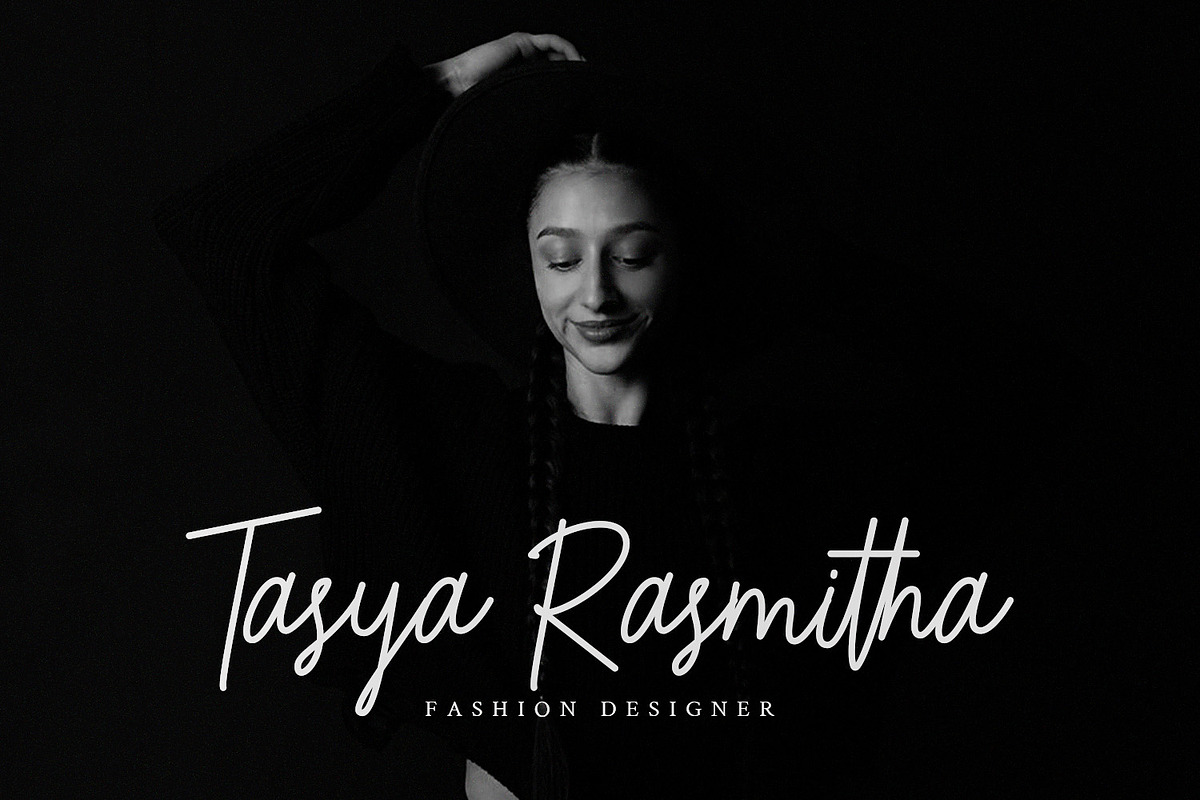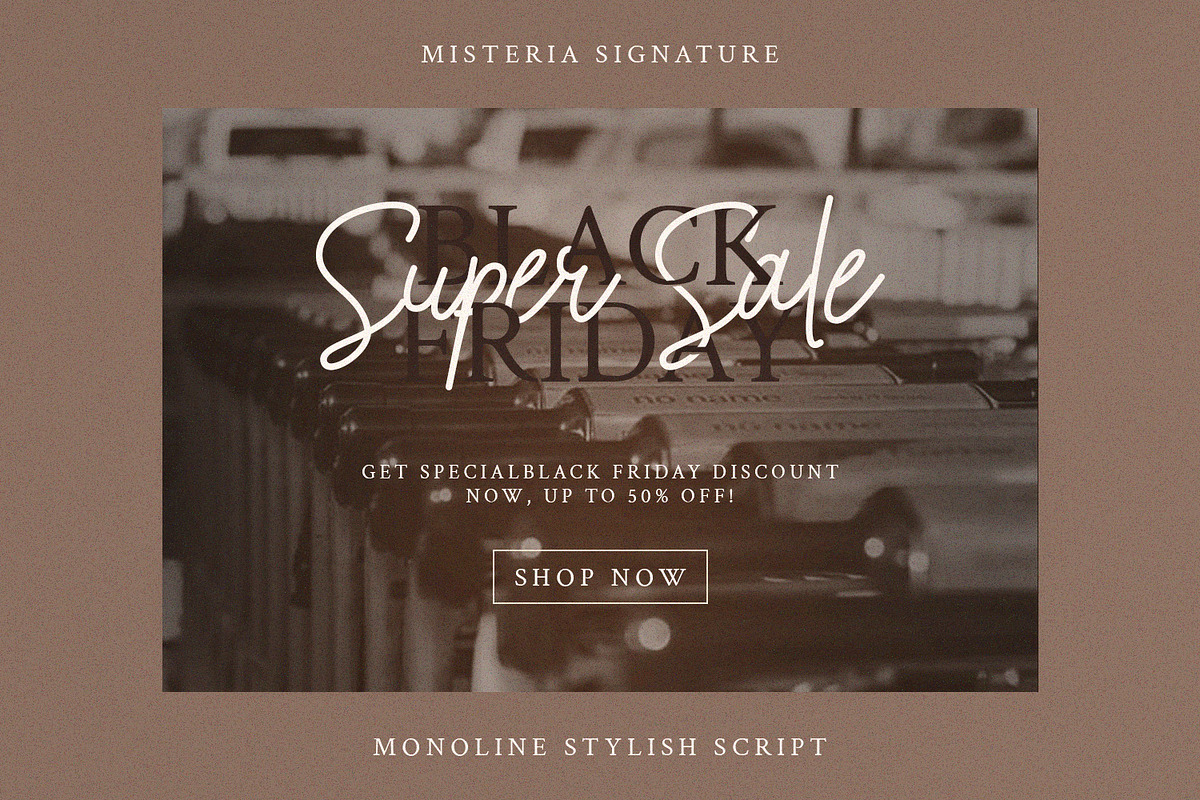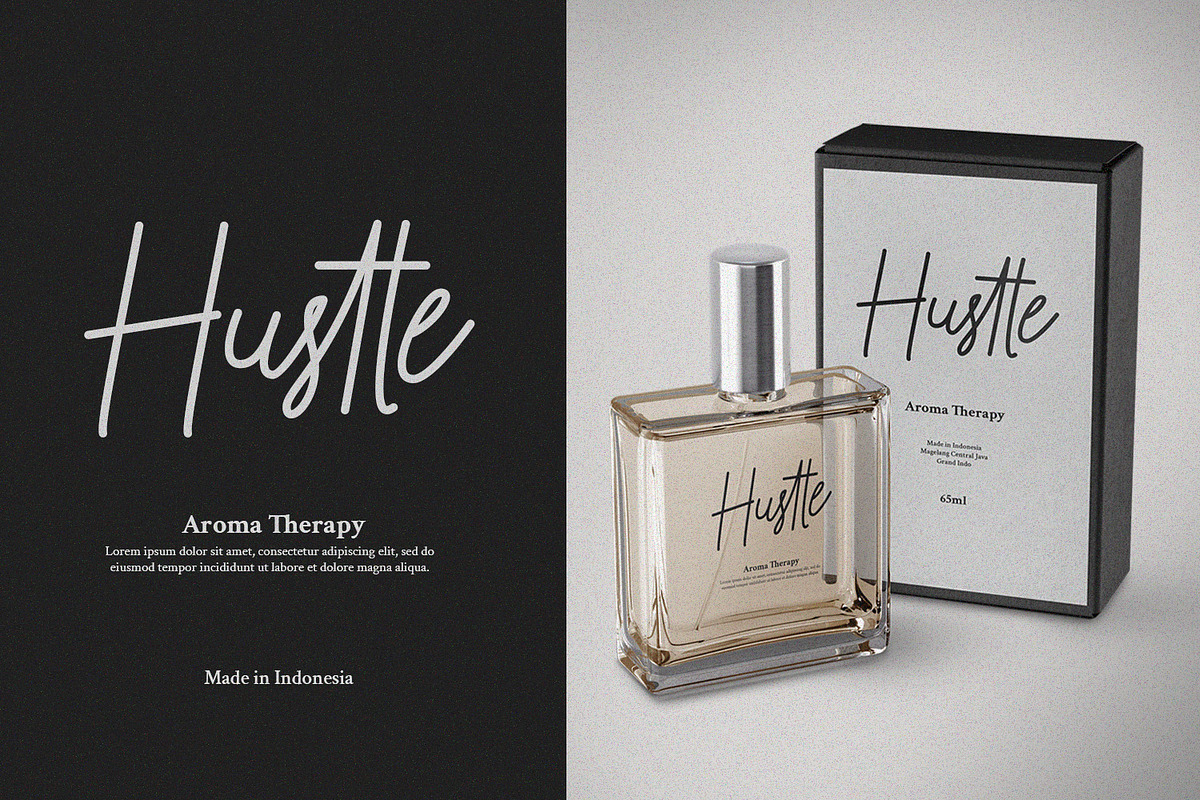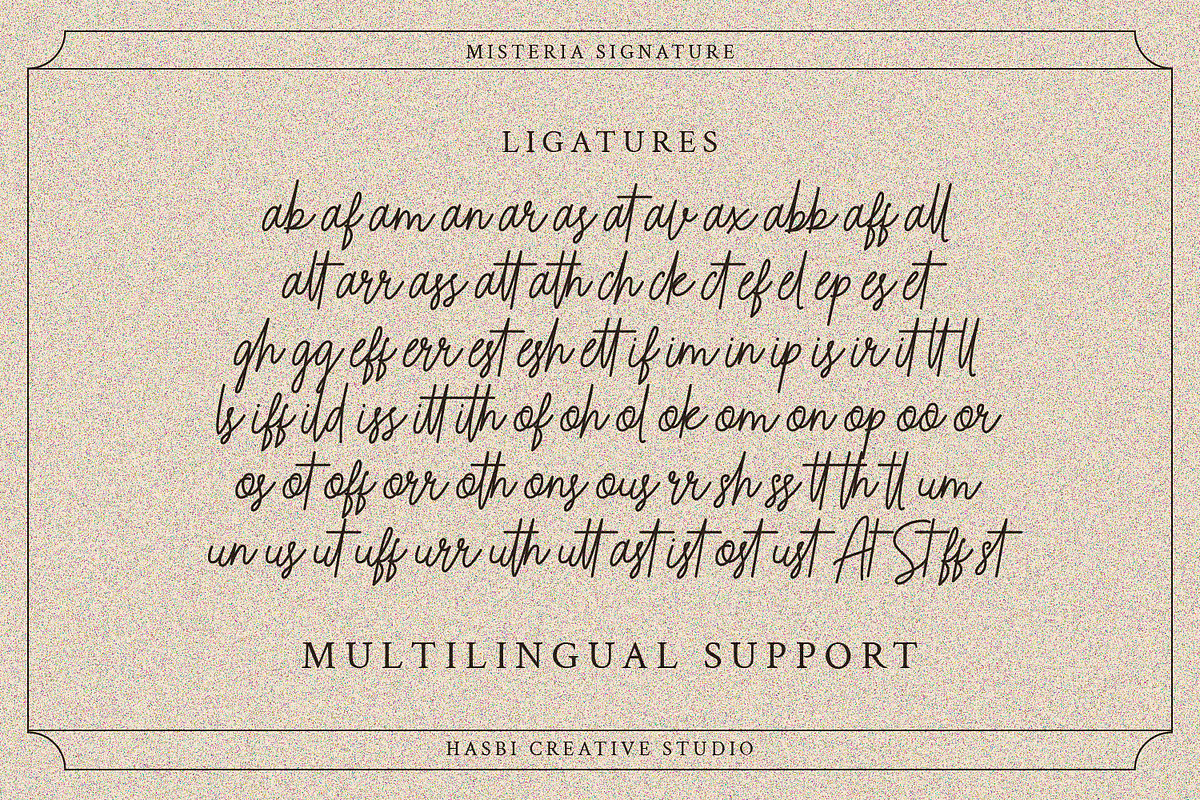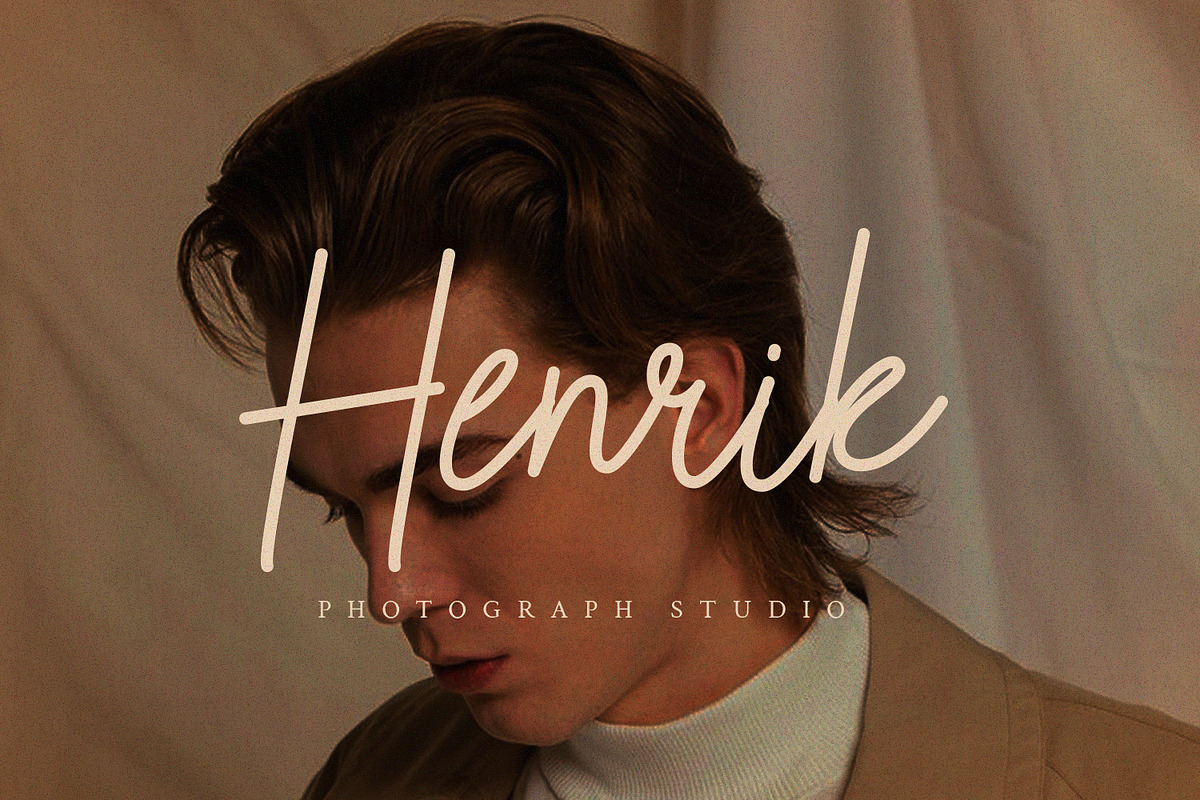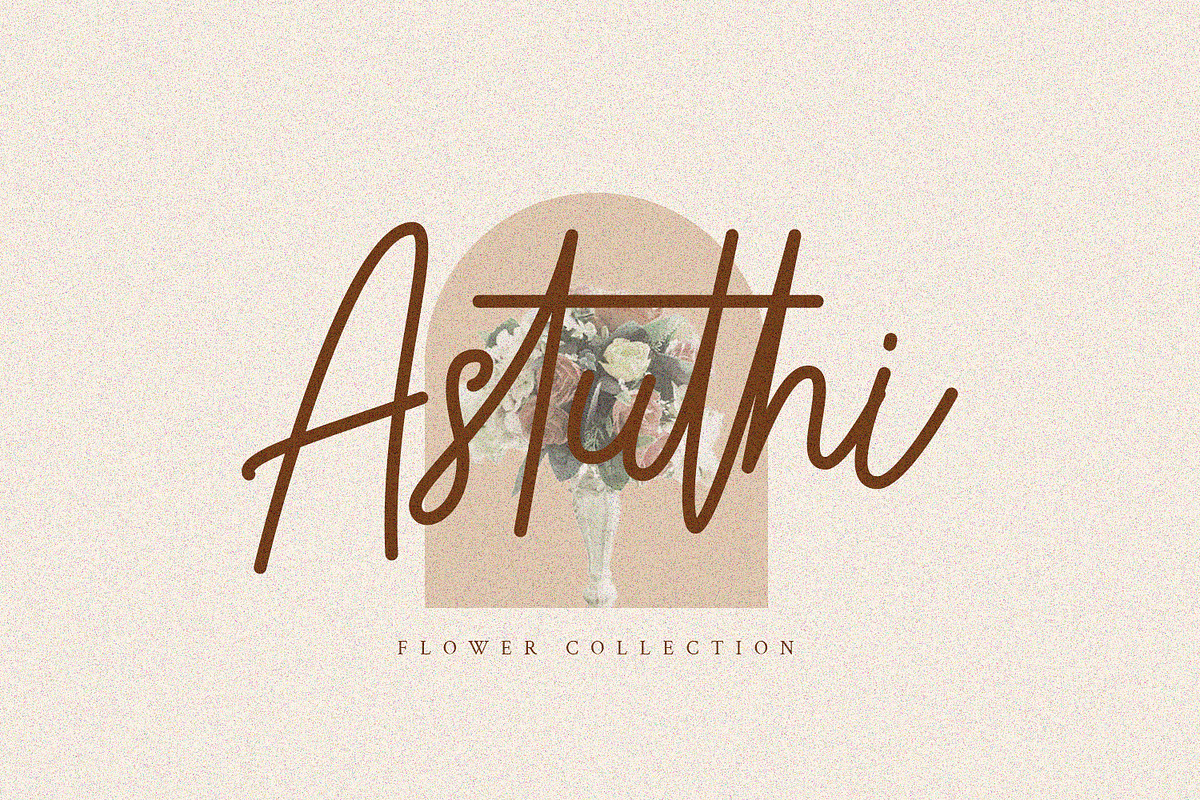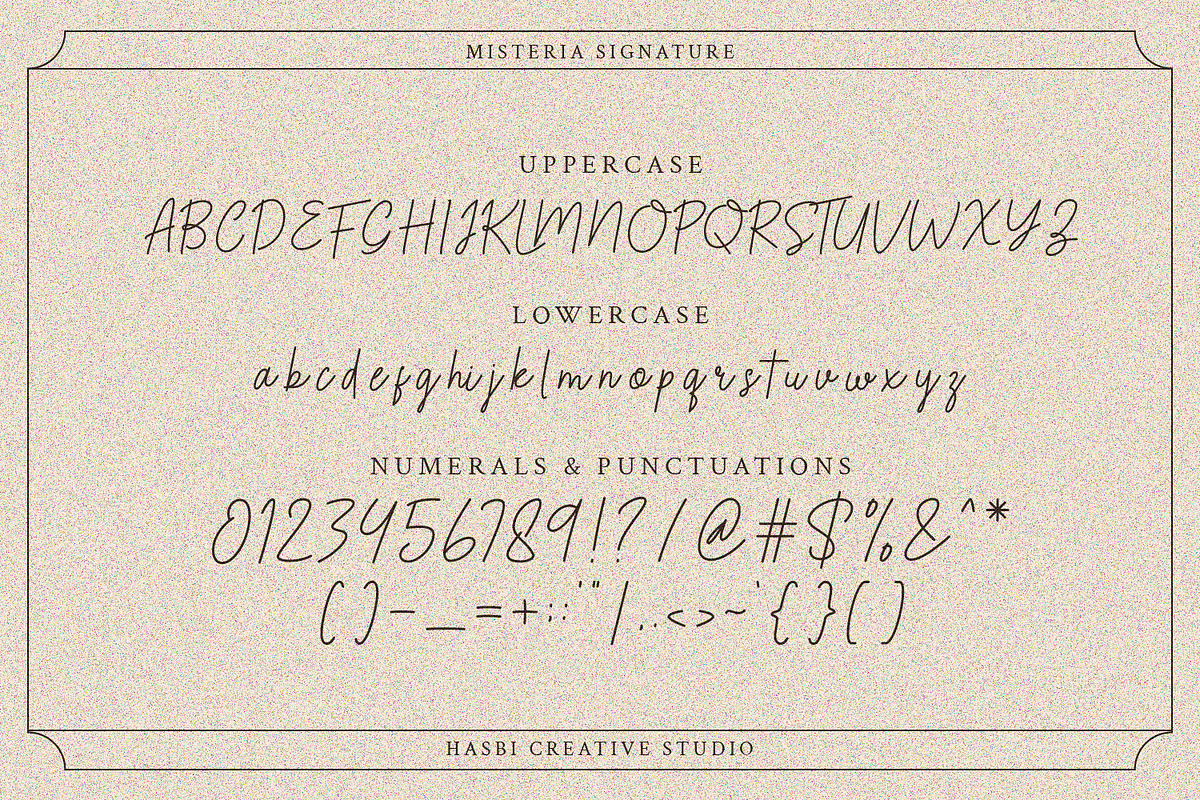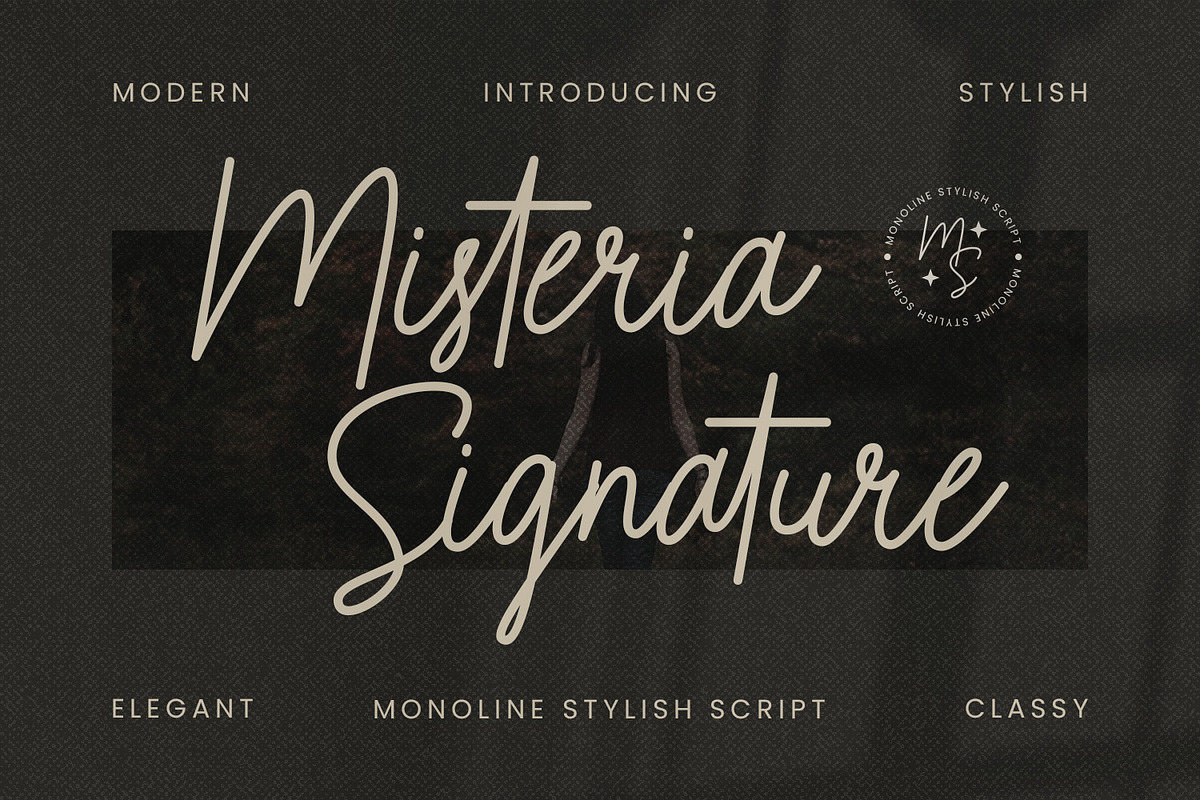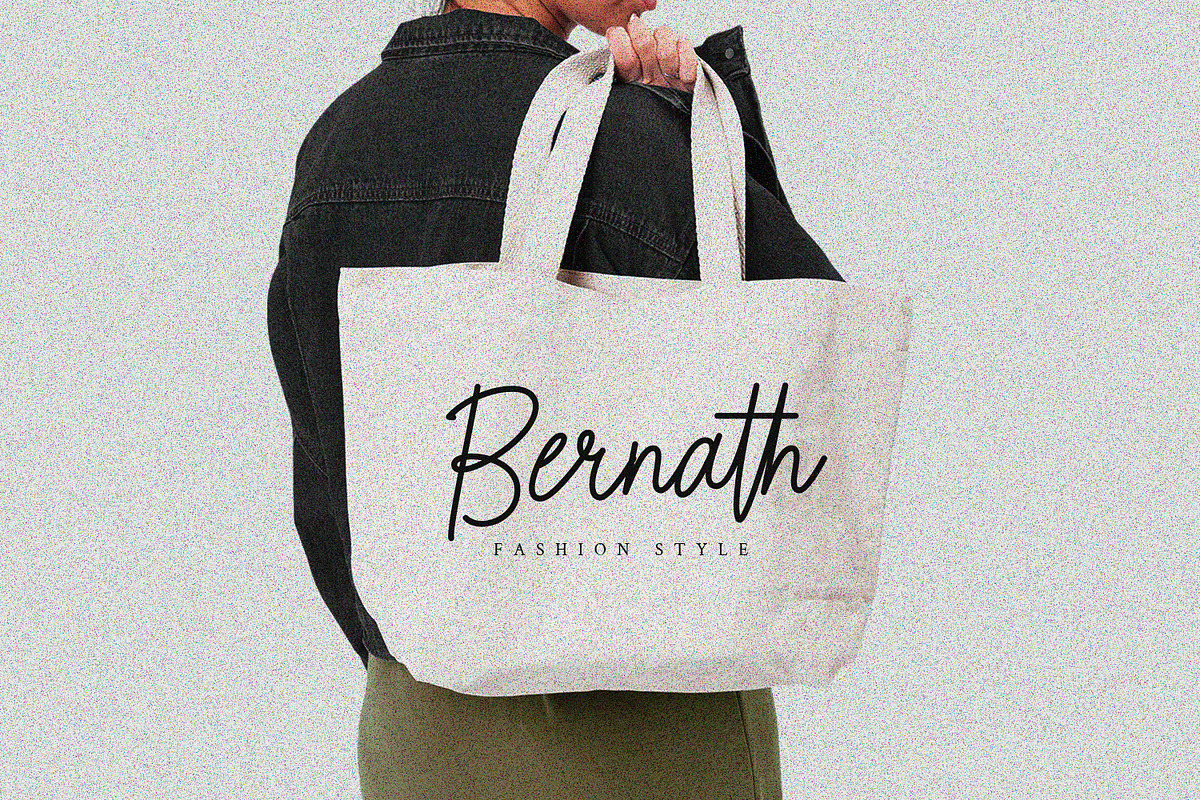
Misteria Signature Font
Introducing Misteria Signature, a captivating font that brings the charm and elegance of handwritten calligraphy to your digital creations. With its flowing strokes, graceful curves, and authentic handwritten style, Misteria Signature adds a touch of personalization and sophistication to any project.
- Authentic handwritten style